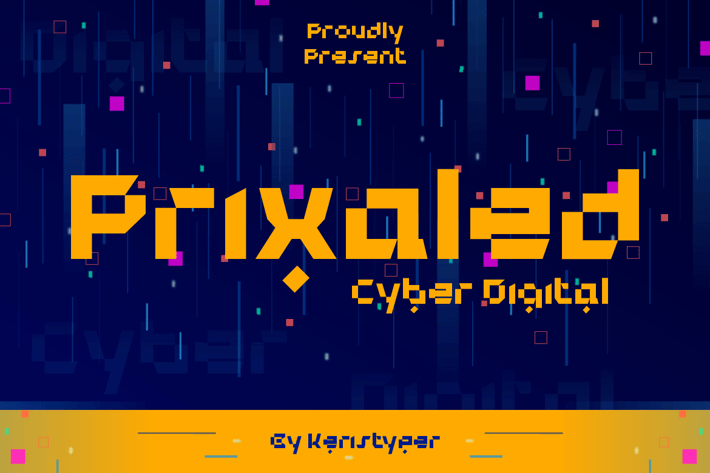
Prixaled Font
Introducing Prixaled display font to make your typography design more futuristic. This font is good for logo design, Social media, Movie Titles, Books Titles, short text even long text letters, and good for your secondary text font with the script, sans, or serif.
Standard Uppercase & Lowercase
Multilingual : ä ö ü Ä Ö Ü ß ¿ ¡
Alternate & Ligature